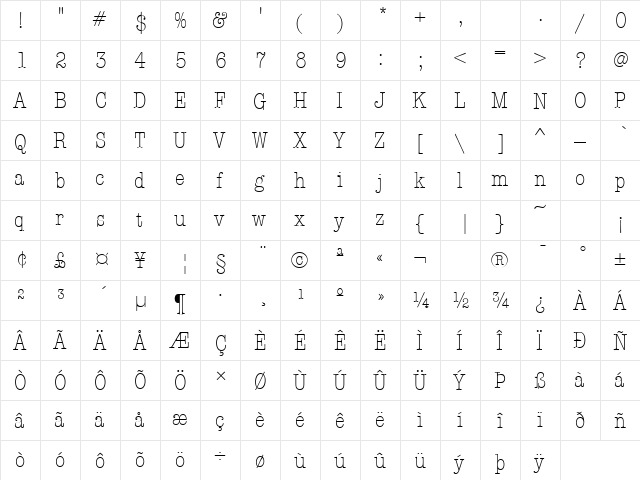
TypewriterCondL Regular
Design Context for TypewriterCondL Typeface
TypewriterCondL brings the precise, column-aligned rhythm of monospaced typography to designs that value technical clarity and systematic order.